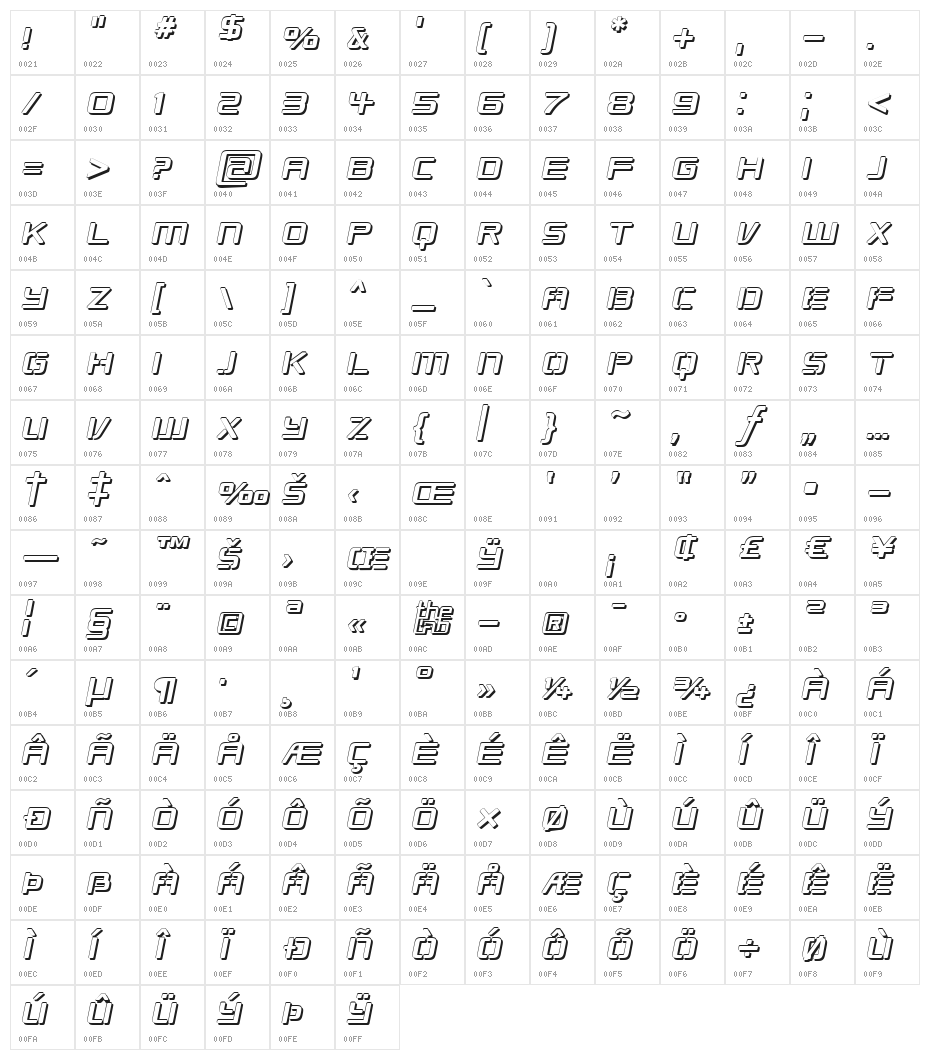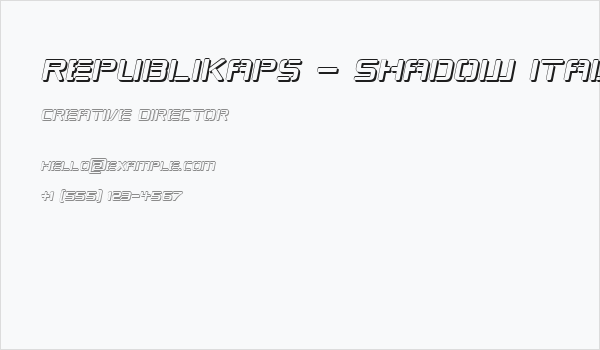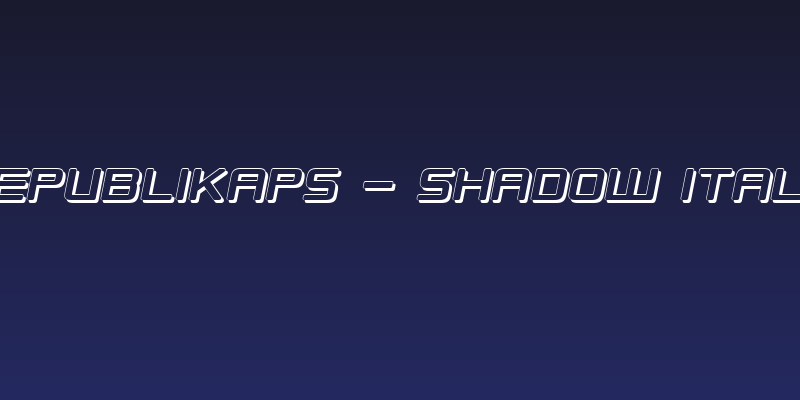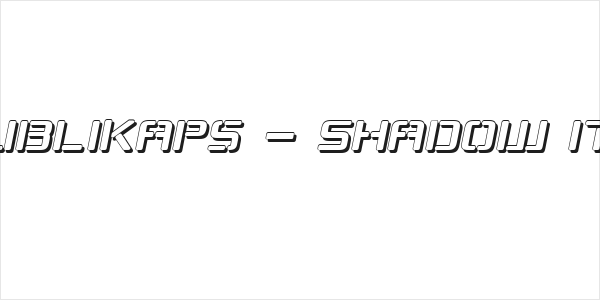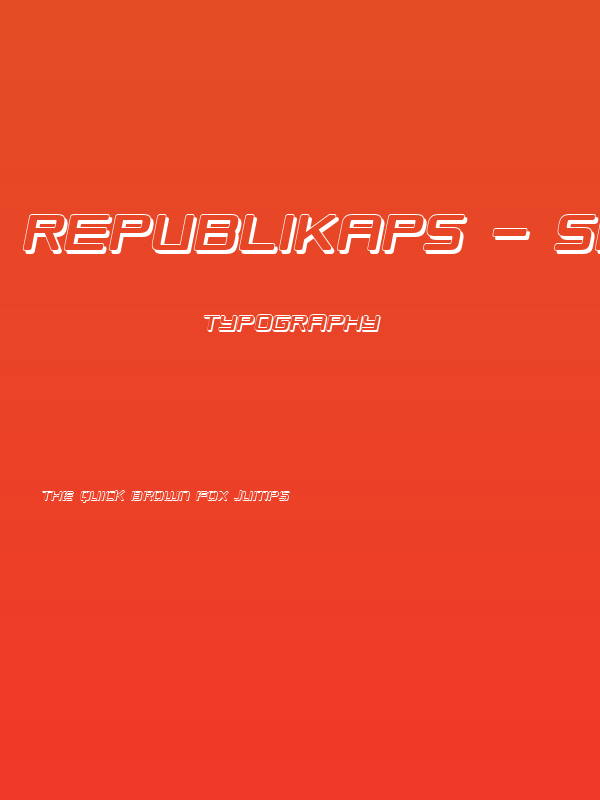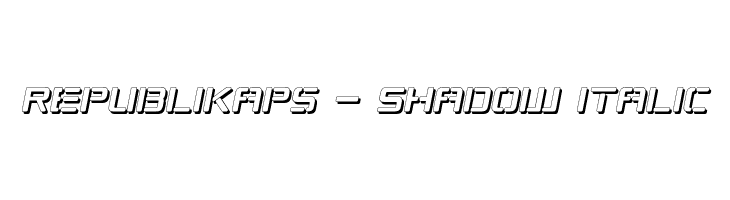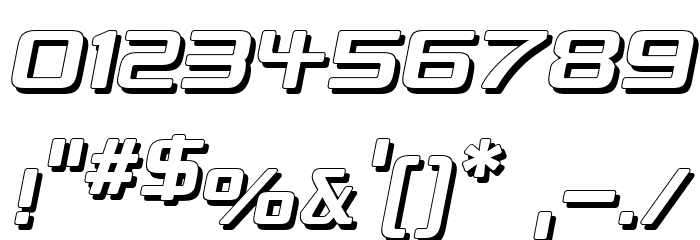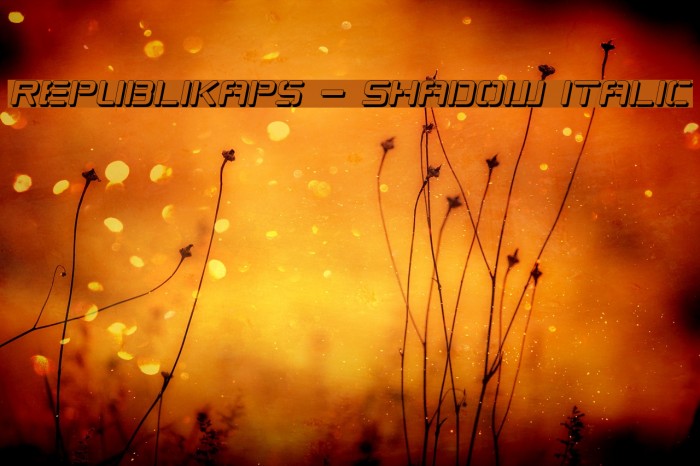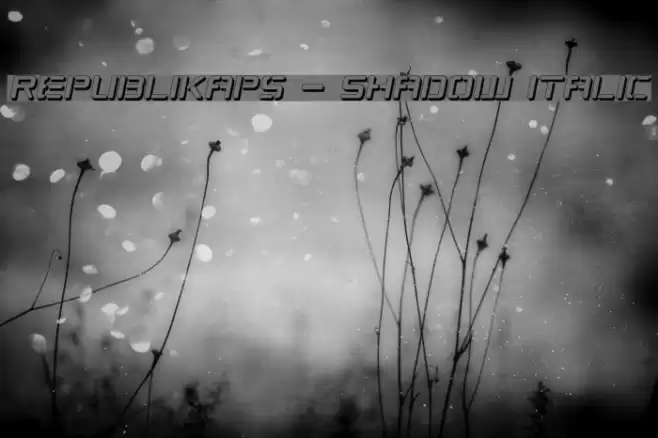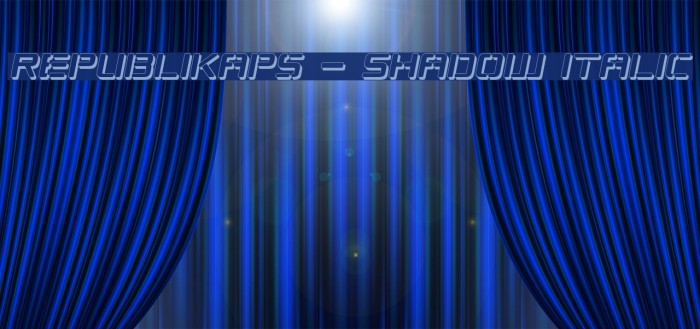
Republikaps - Shadow Italic Font
Republikaps - Shadow Italic Description
This font features a bold, italicized style with a distinct shadow effect that gives it a three-dimensional appearance. The characters are outlined, creating a sense of depth and dynamism. The uppercase and lowercase letters maintain a consistent design, with smooth curves and sharp angles that enhance readability while adding a modern flair. The numbers and special characters follow the same stylistic approach, ensuring uniformity across all elements. This font's unique shadowing and italic slant make it stand out, suitable for eye-catching designs.
| Proposed Projects | Ideal for posters, logos, video game graphics, and any project needing a modern, dynamic touch. |